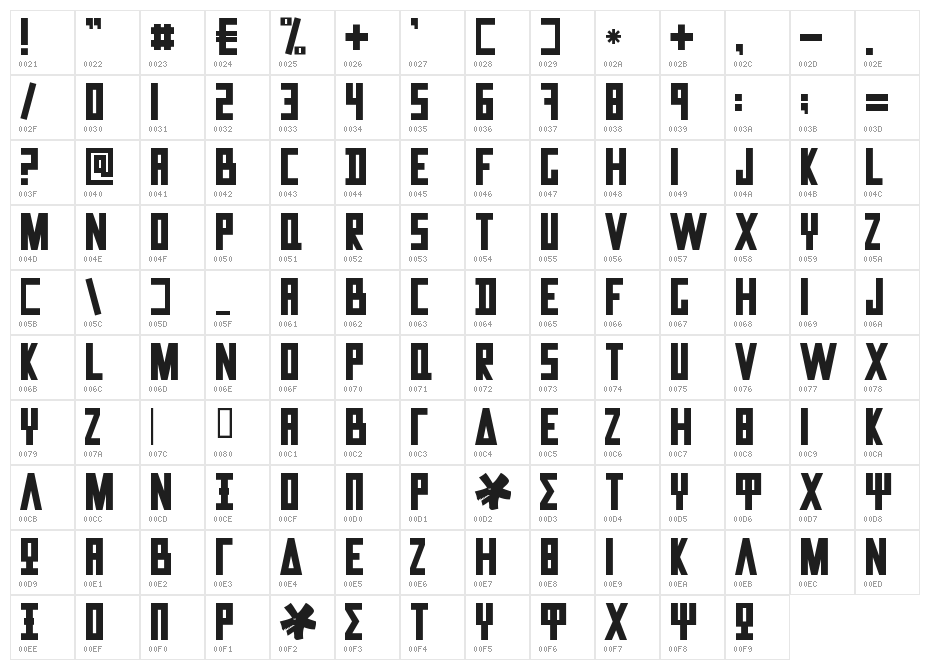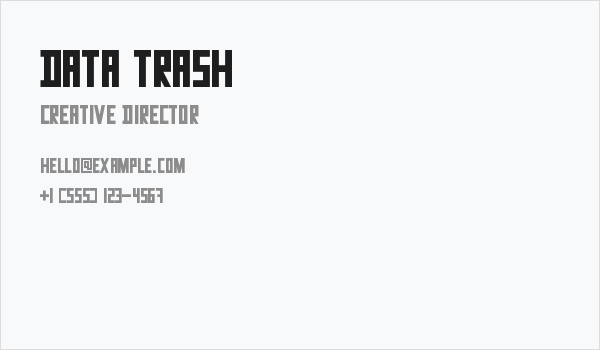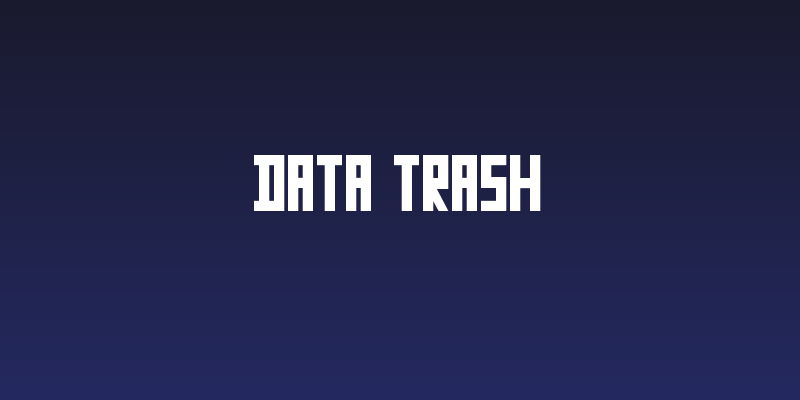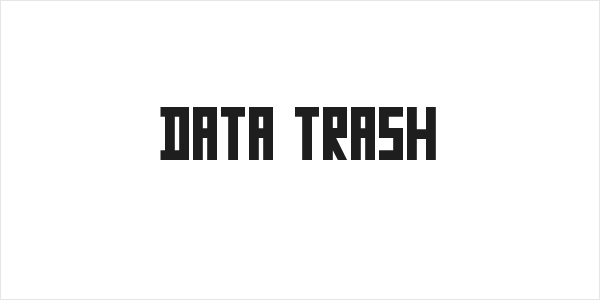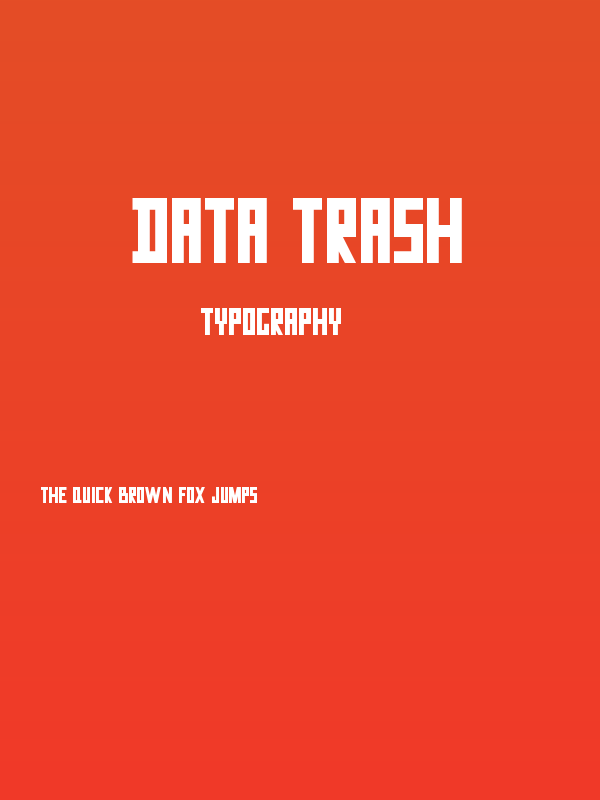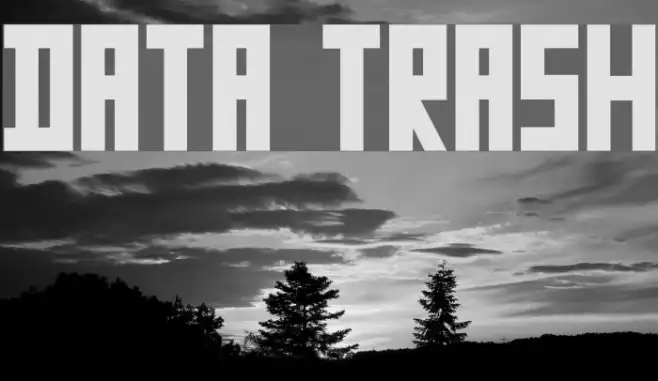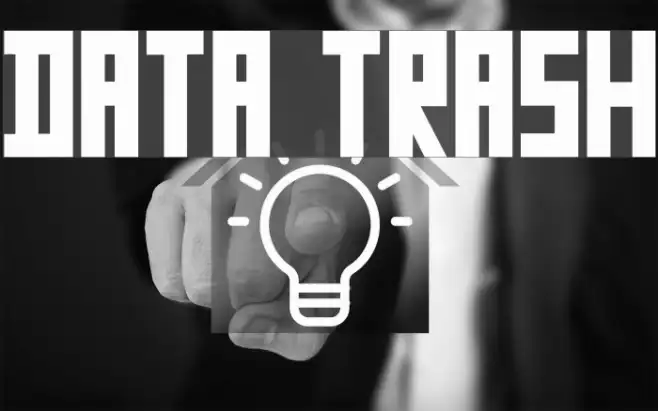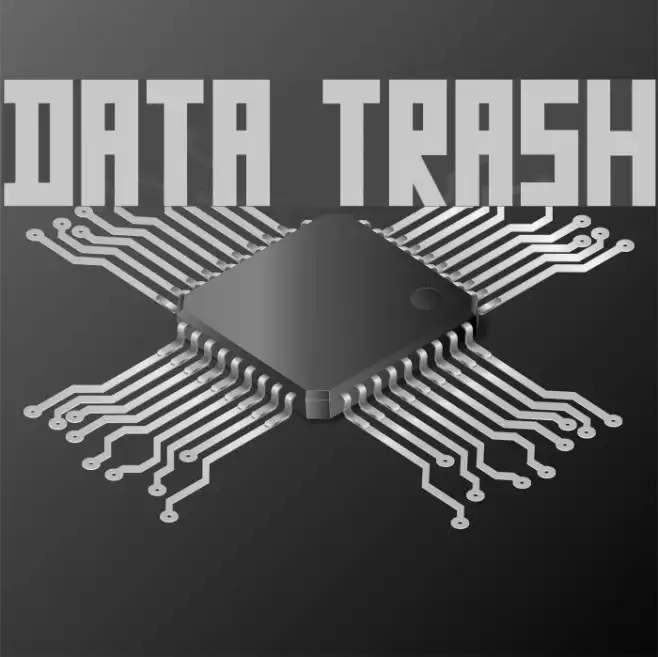
Data Trash Font
Data Trash Description
This font features a bold, geometric design with strong, block-like characters. Each letter and number is crafted with sharp angles and straight lines, giving it a modern and industrial feel. The uppercase and lowercase letters maintain a consistent height, contributing to a uniform appearance. The numerals are equally bold, matching the robust style of the alphabet. Special characters are included, designed with the same angular and solid structure. The overall aesthetic is striking and impactful, making it suitable for attention-grabbing designs.
| Proposed Projects | Ideal for posters, logos, branding, and any design requiring a strong visual impact. |